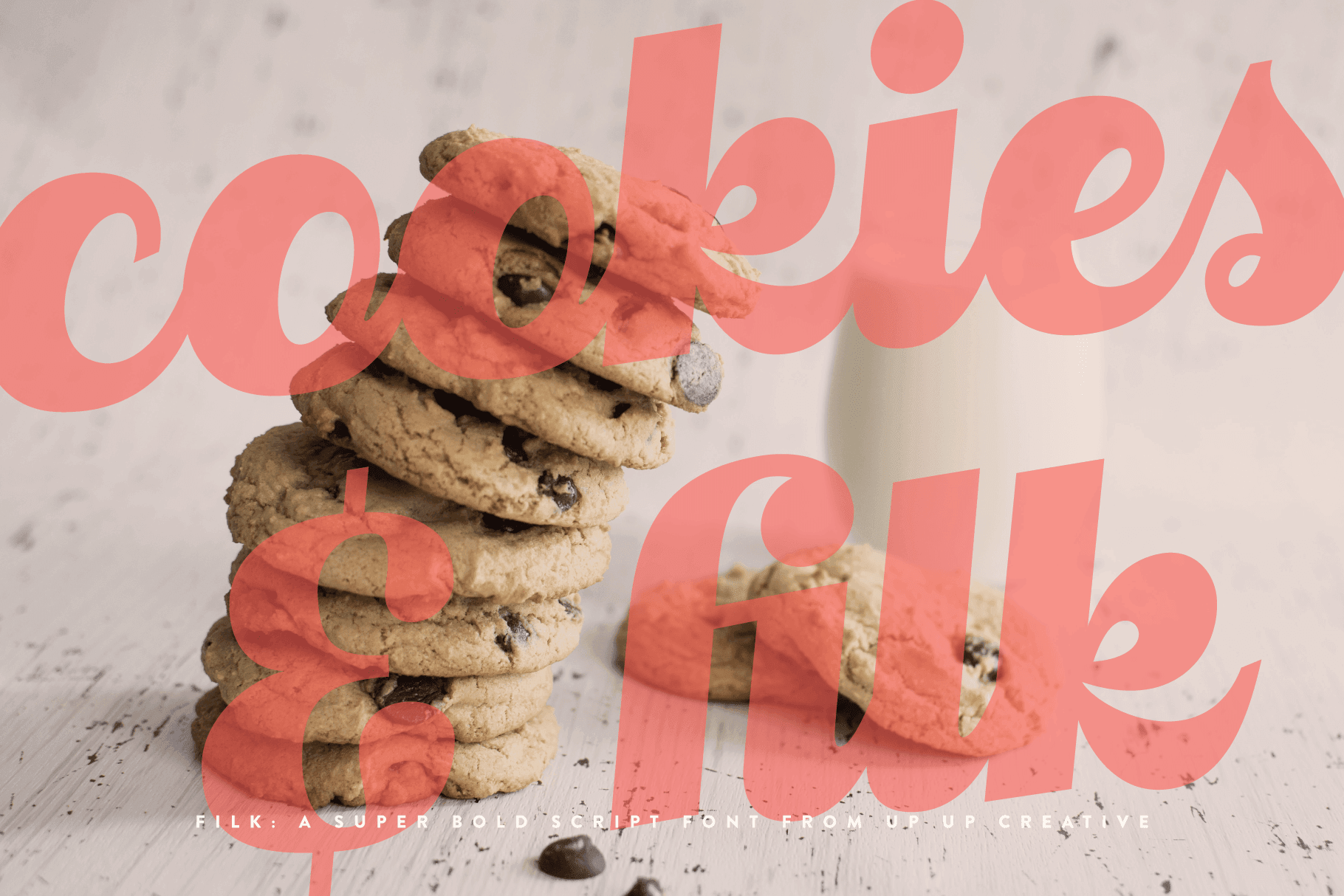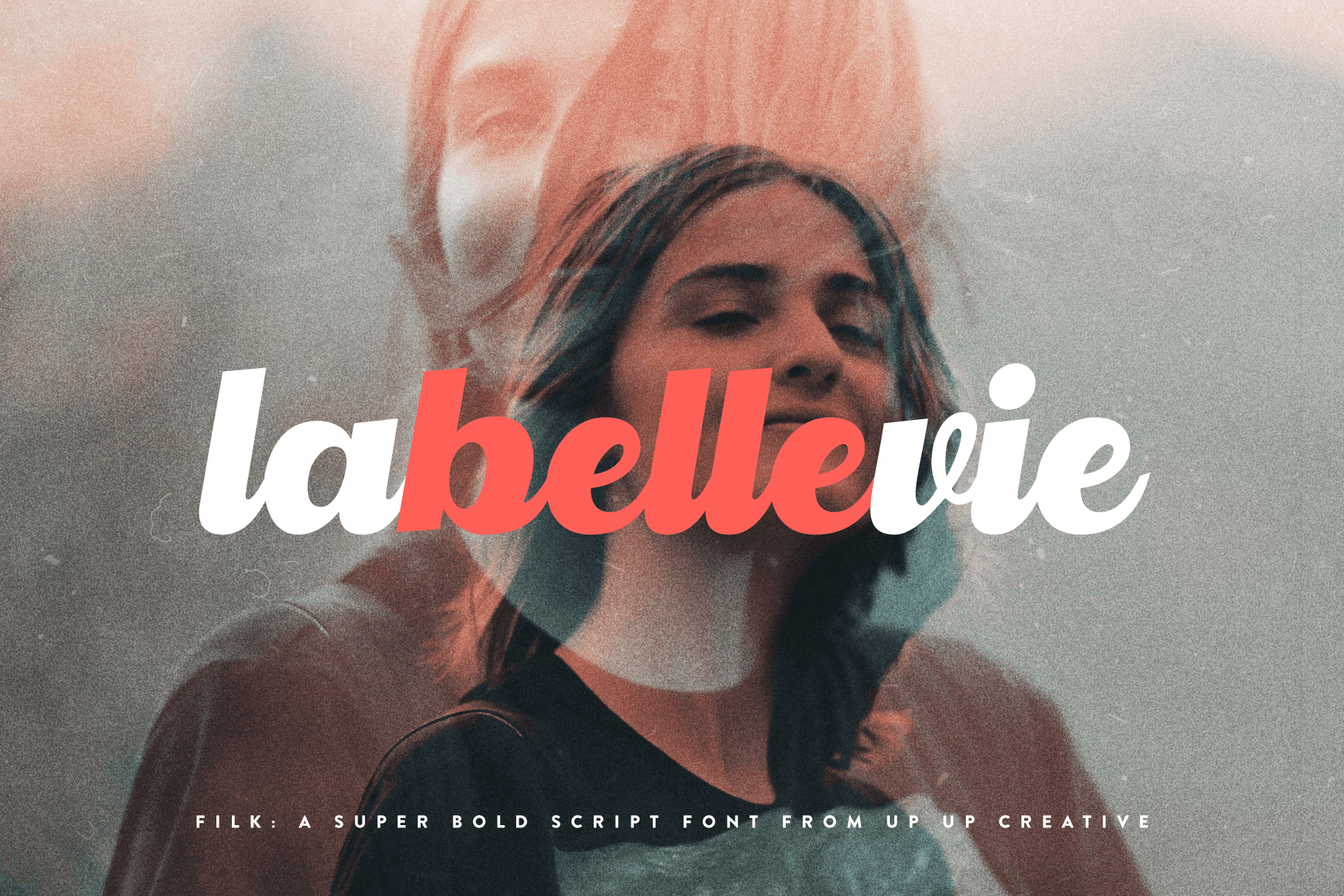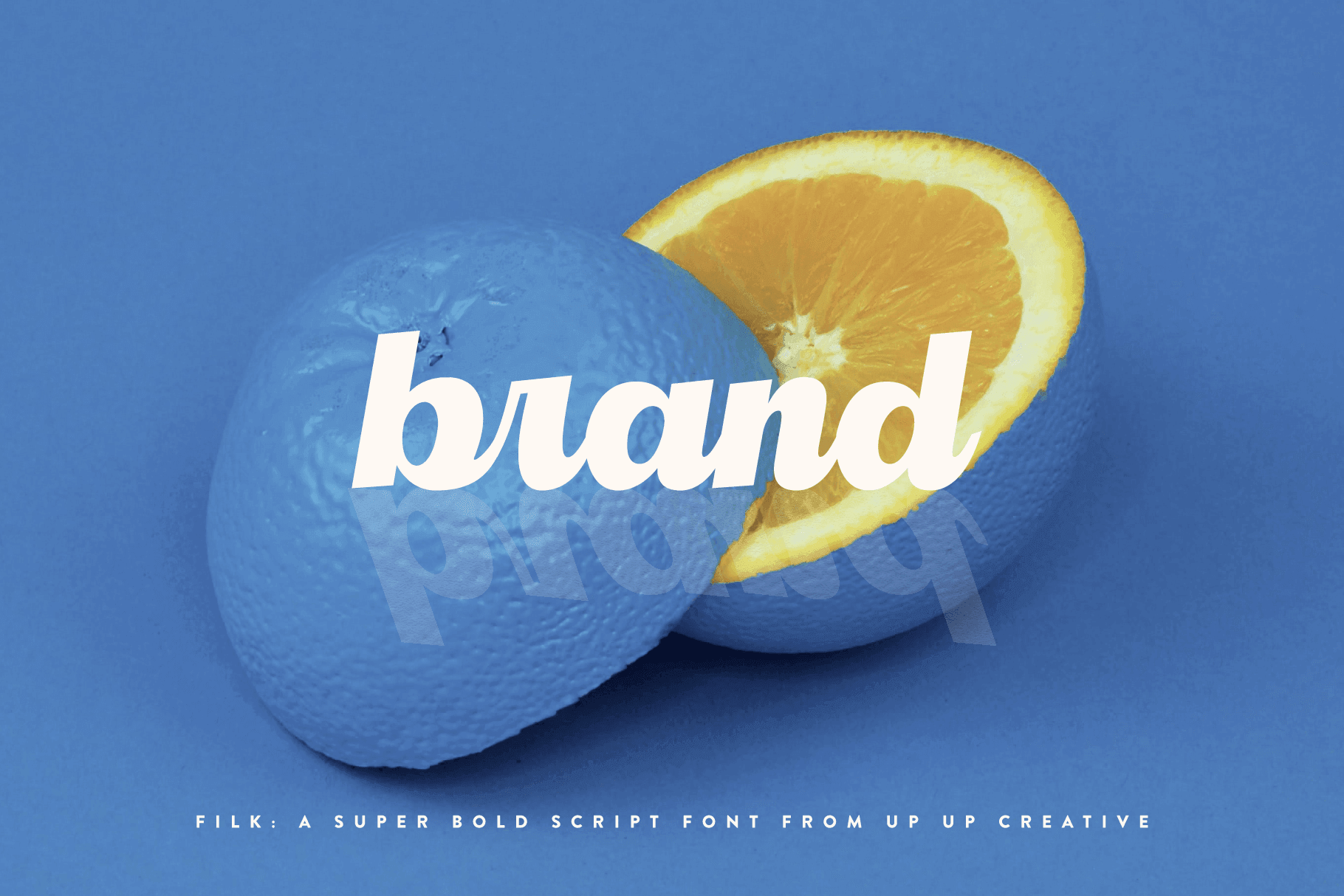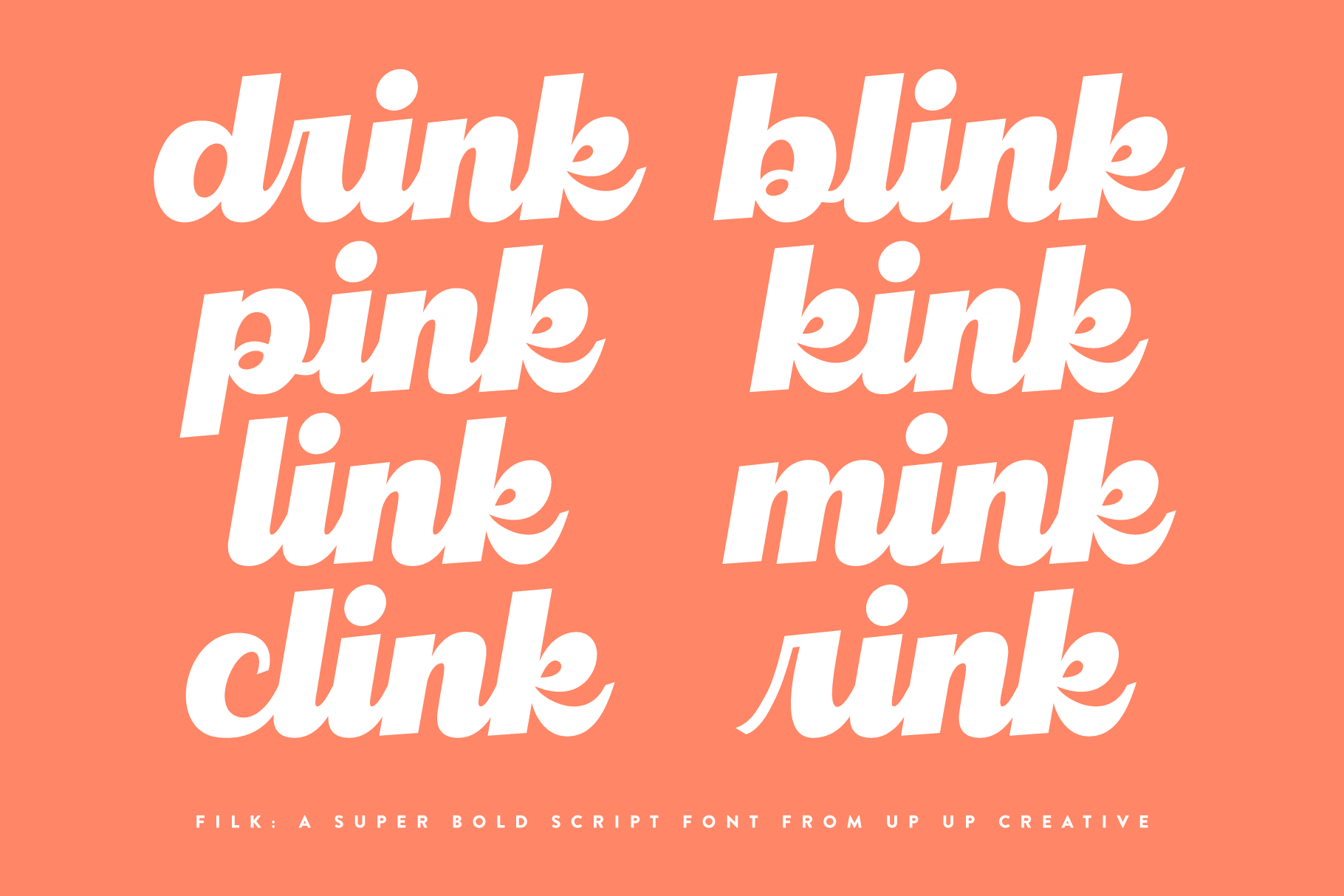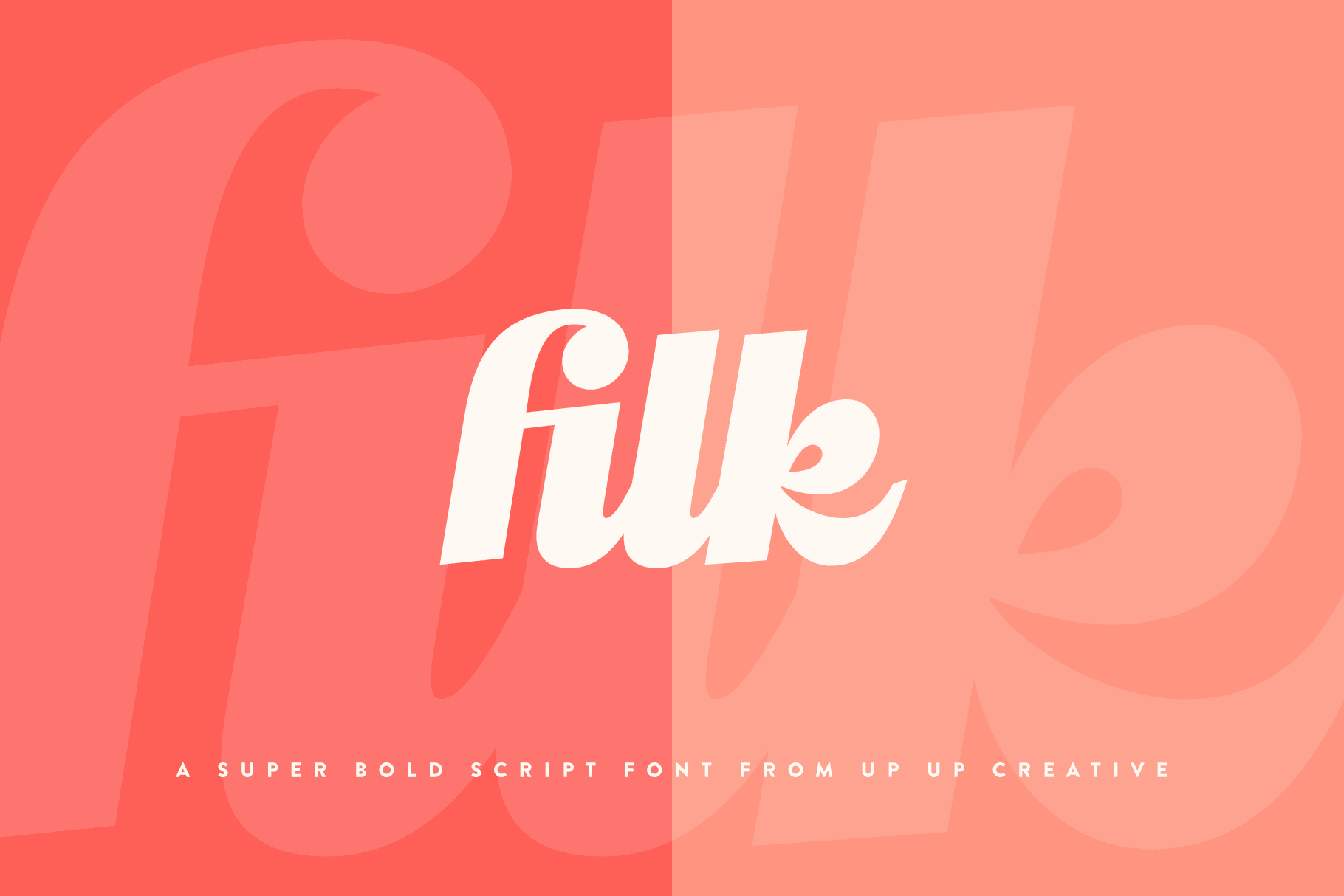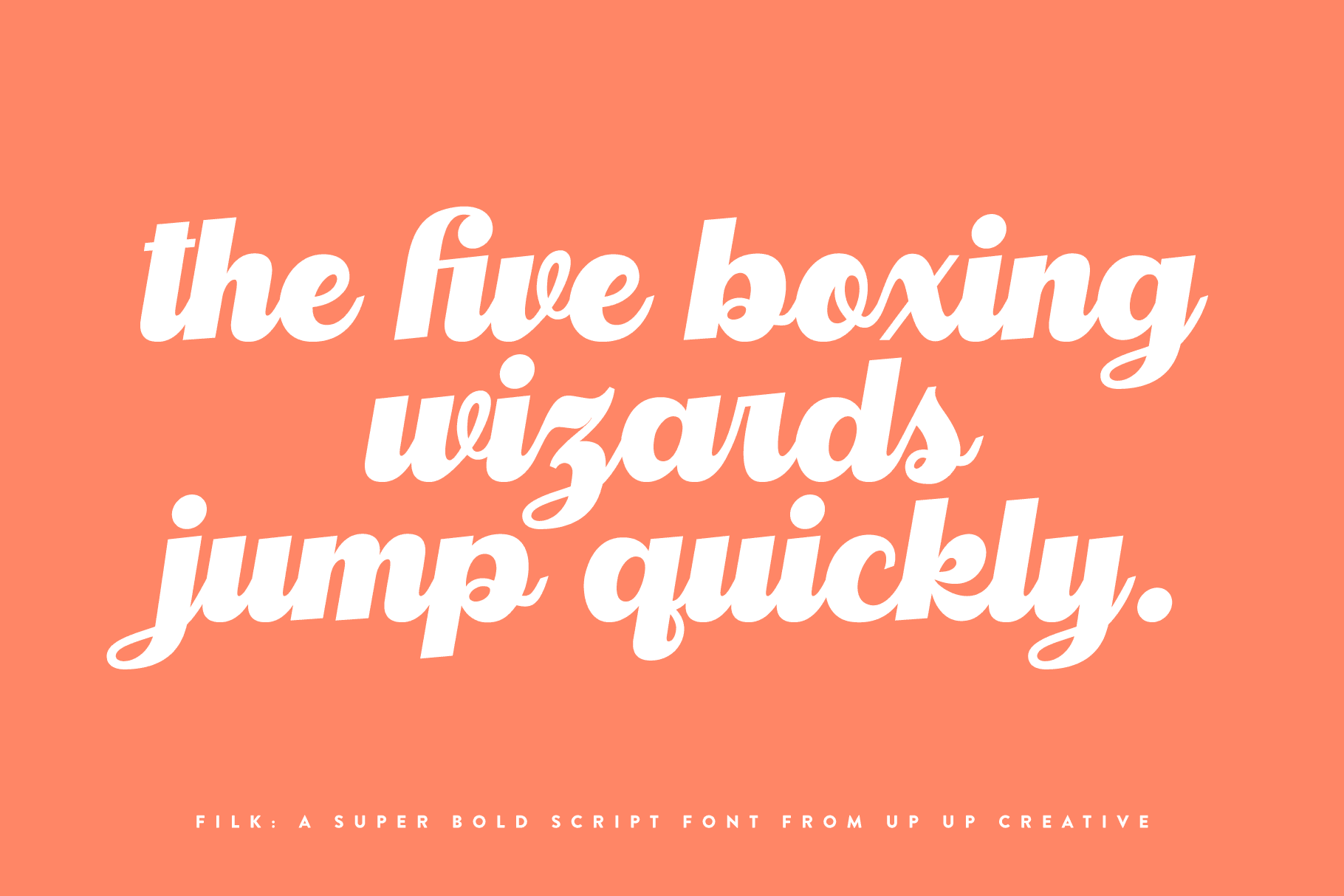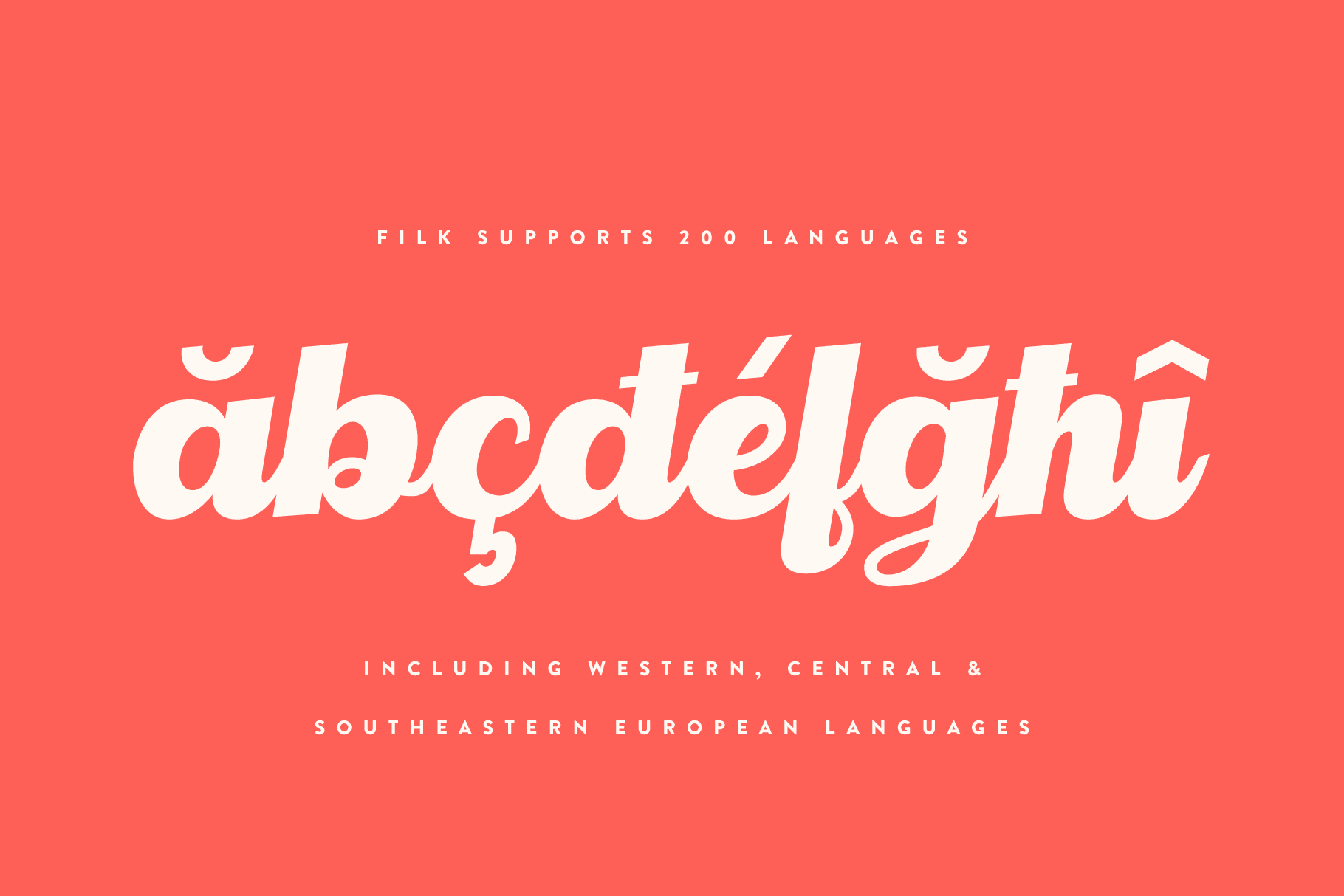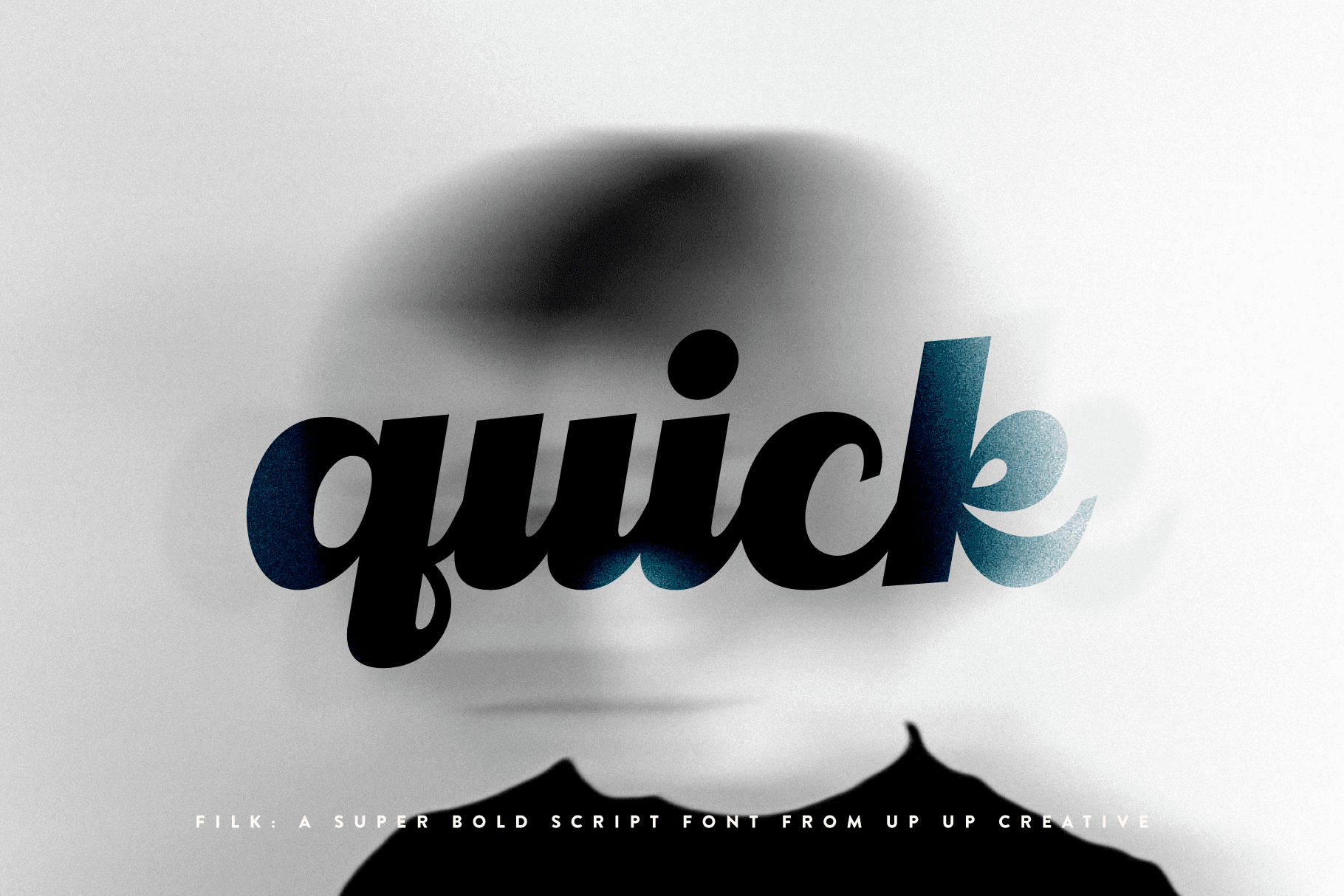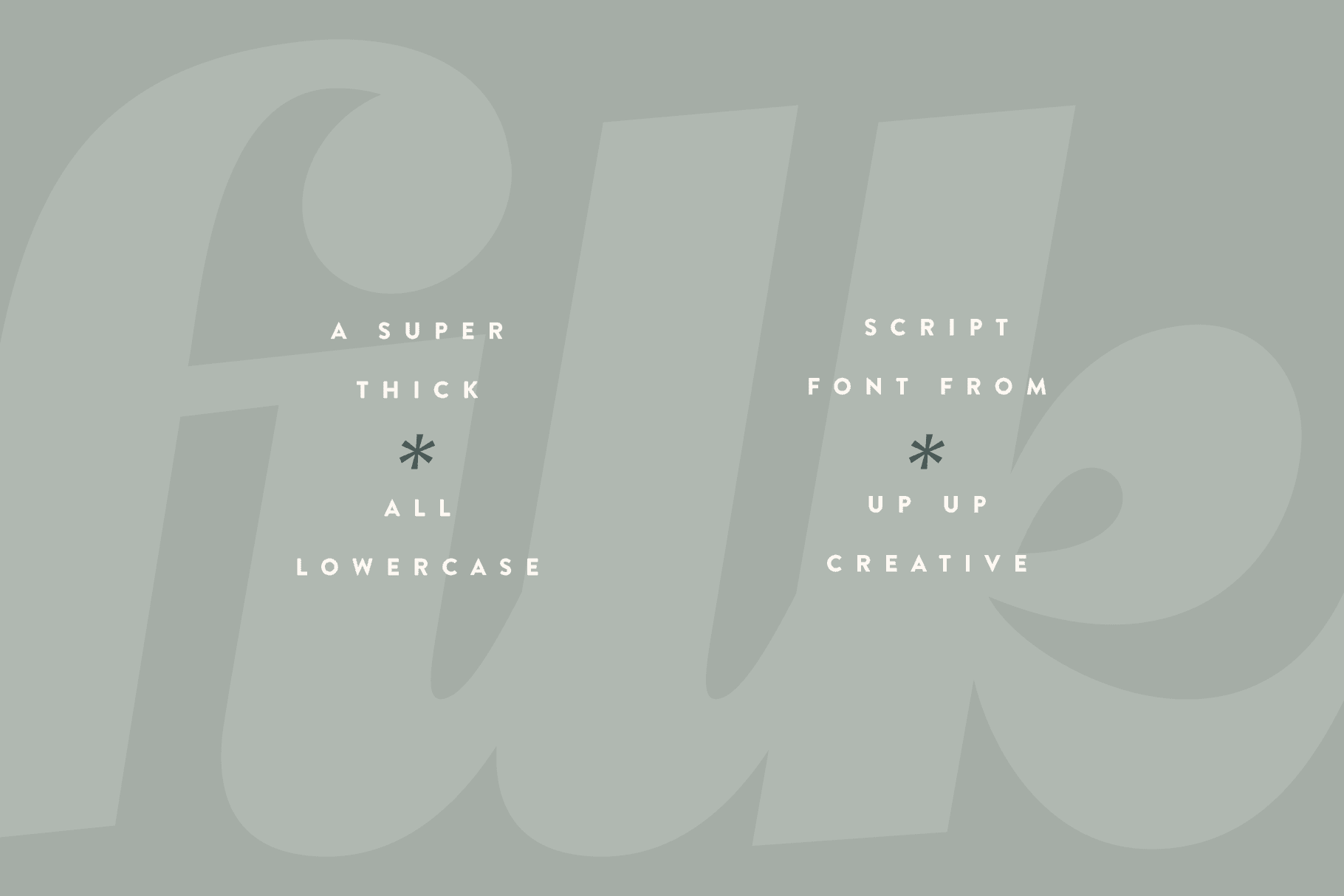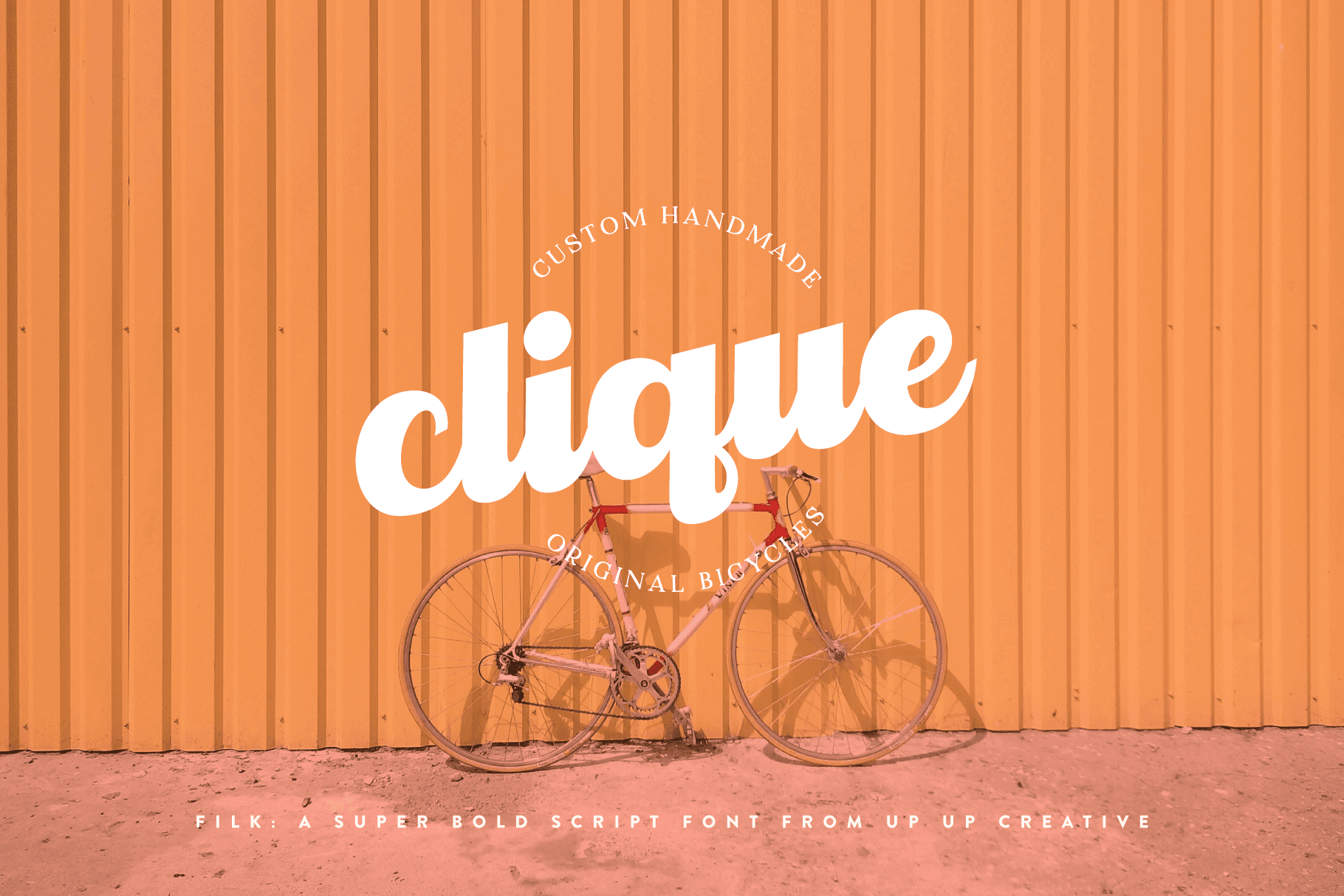
Filk Script Font
Filk is a super bold, all-lowercase script font with gorgeous curves and thick downstrokes. Filk is perfect for branding and editorial projects and dreams of being used on billboards, in magazines, and in movie titles.
Filk includes the following OpenType features:
- character variants
- final forms
- initial forms
- localized forms (multi-language and multi-currency support)
- ordinals and superscripts
- standard and discretionary ligatures
- stylistic sets
Includes 78 ligatures